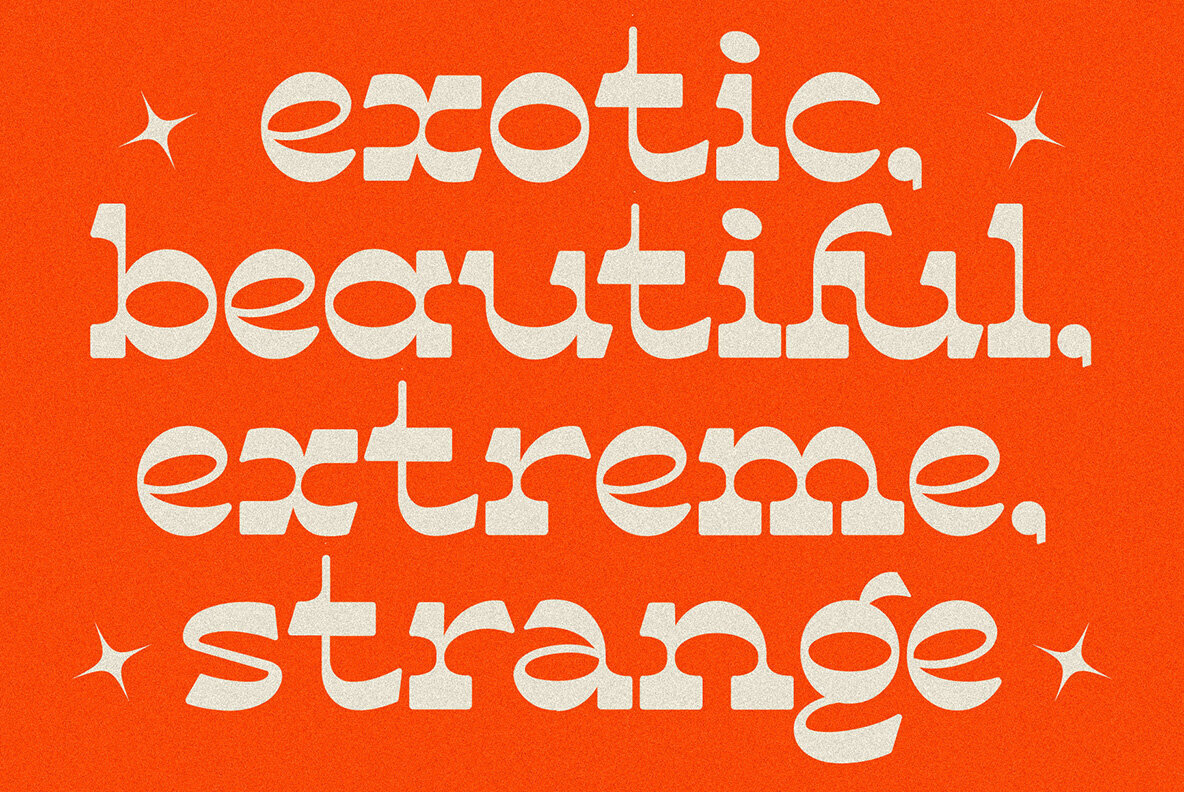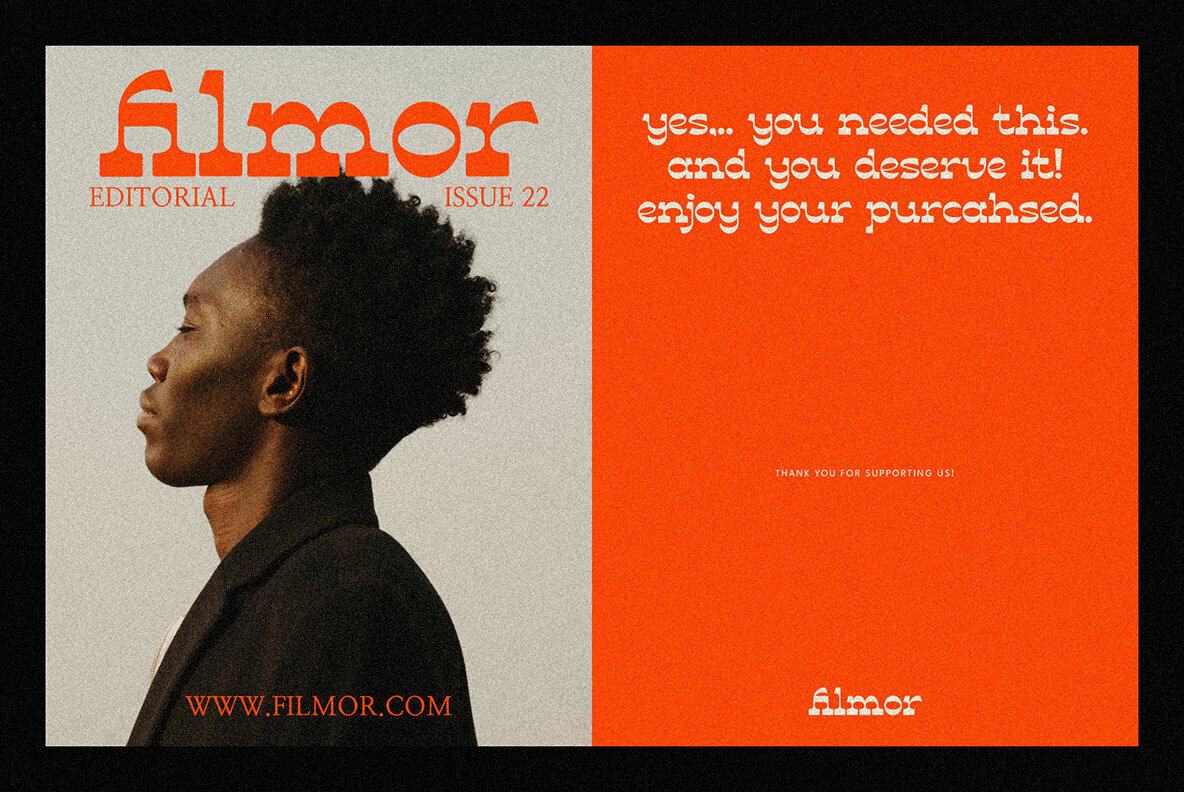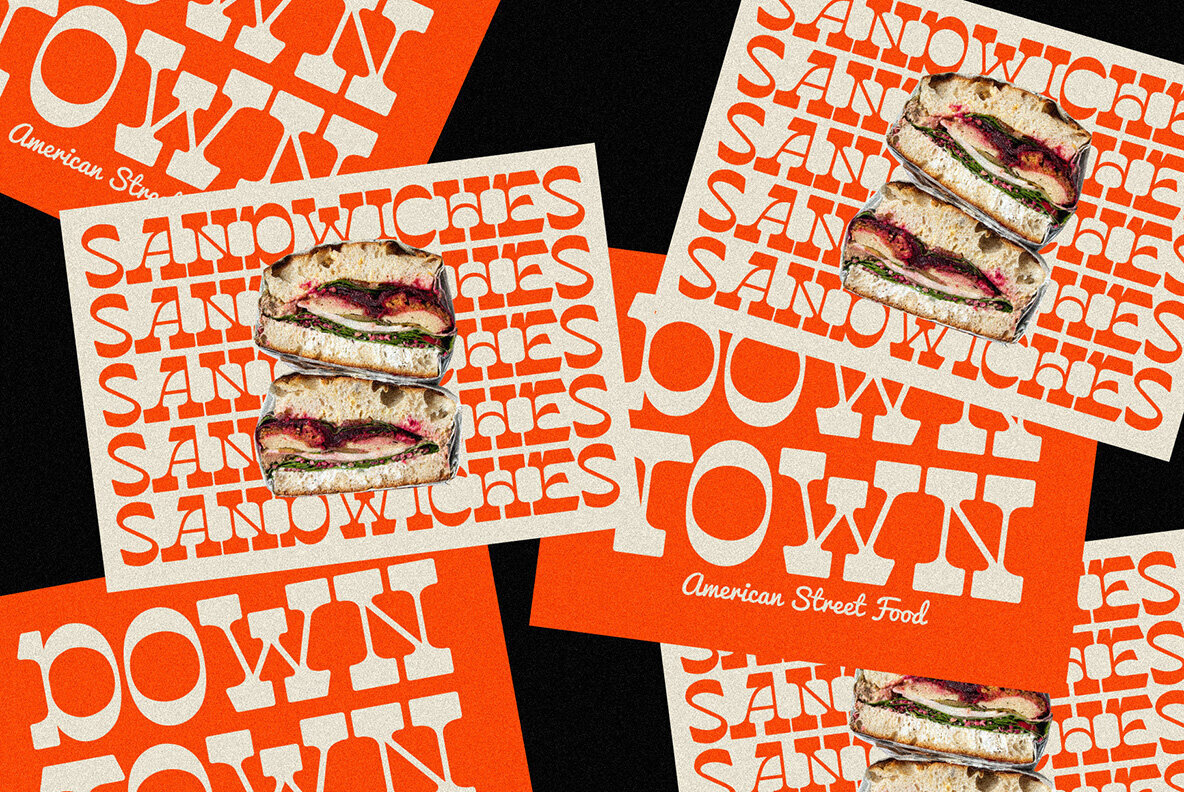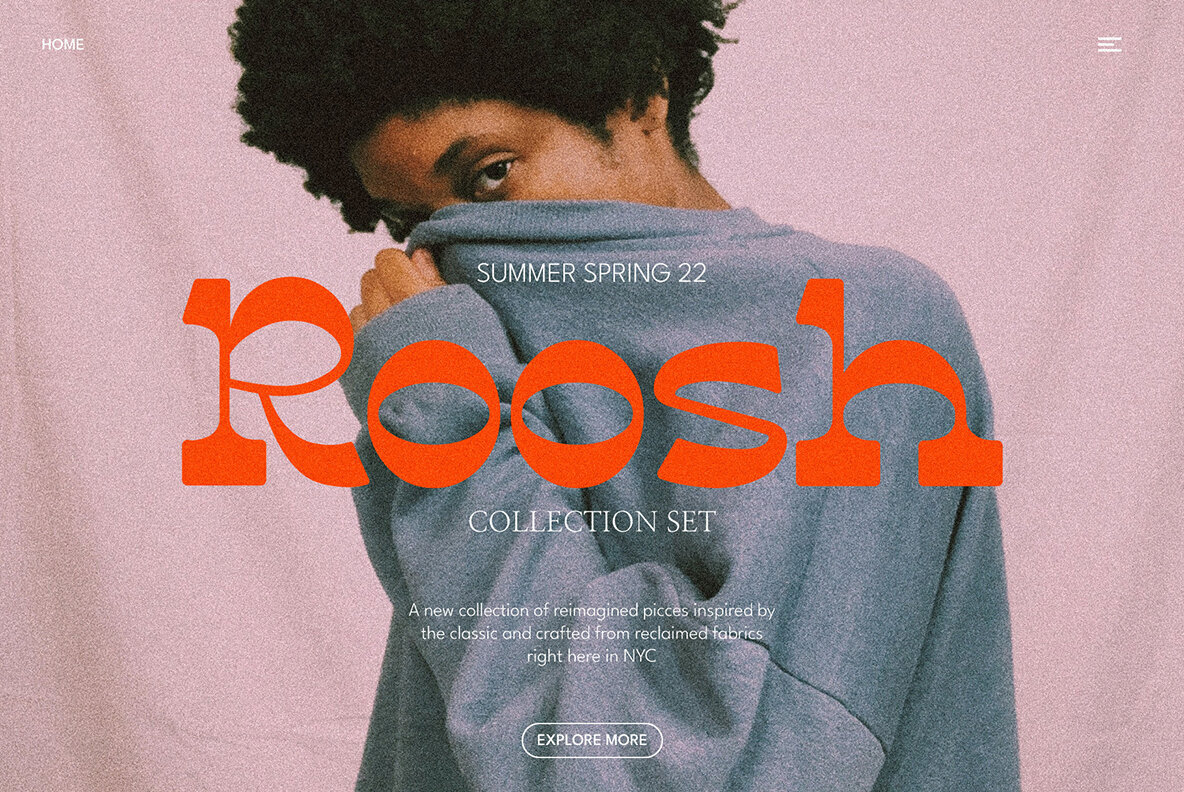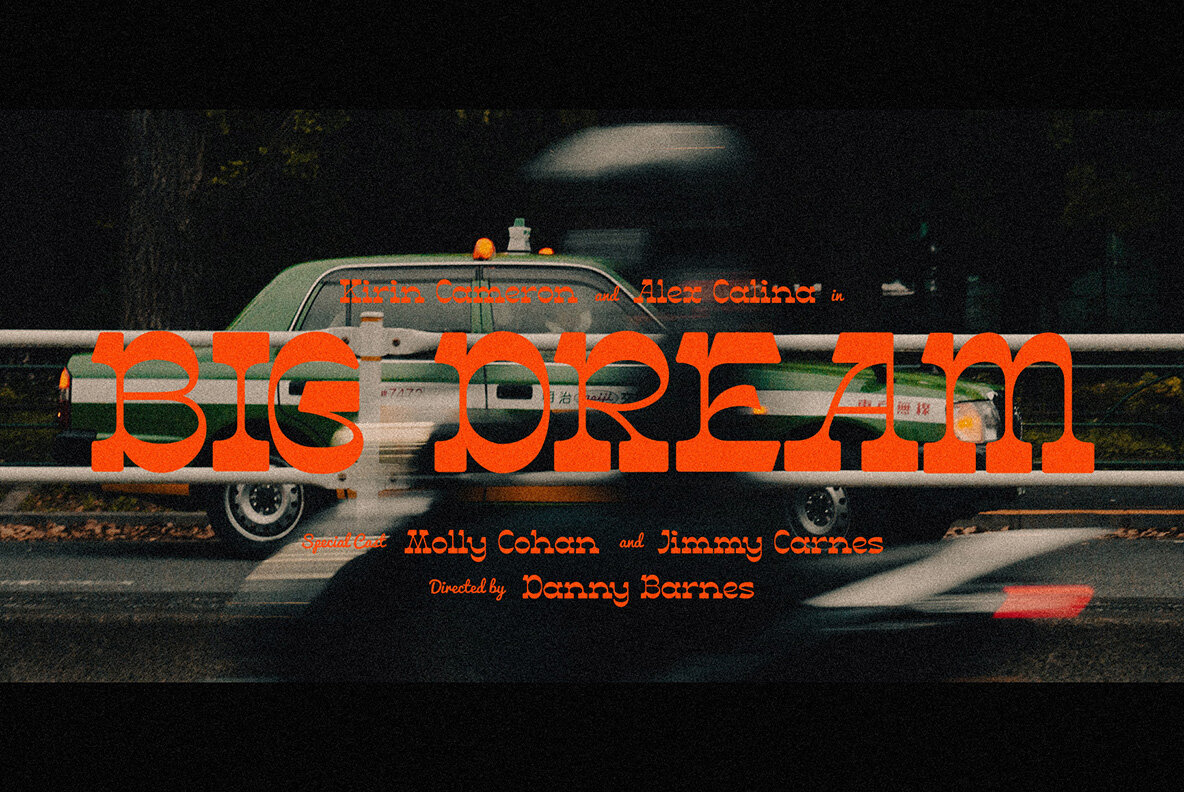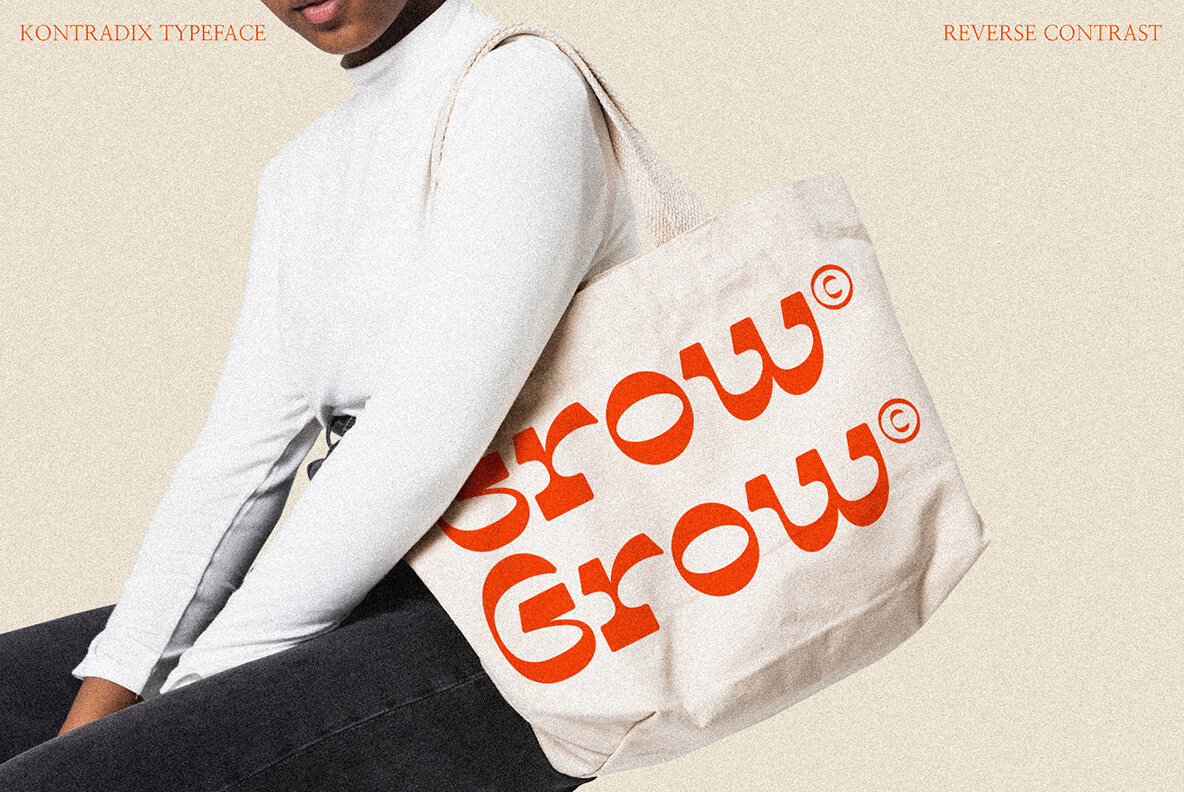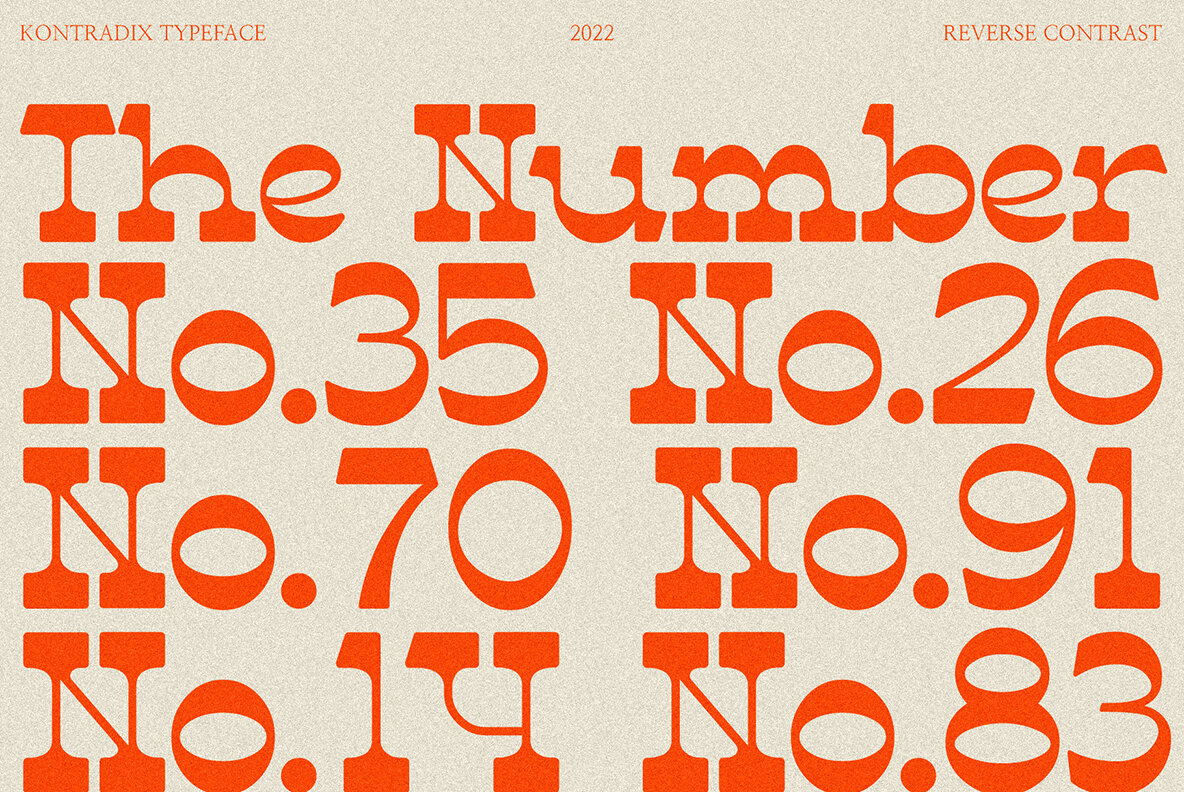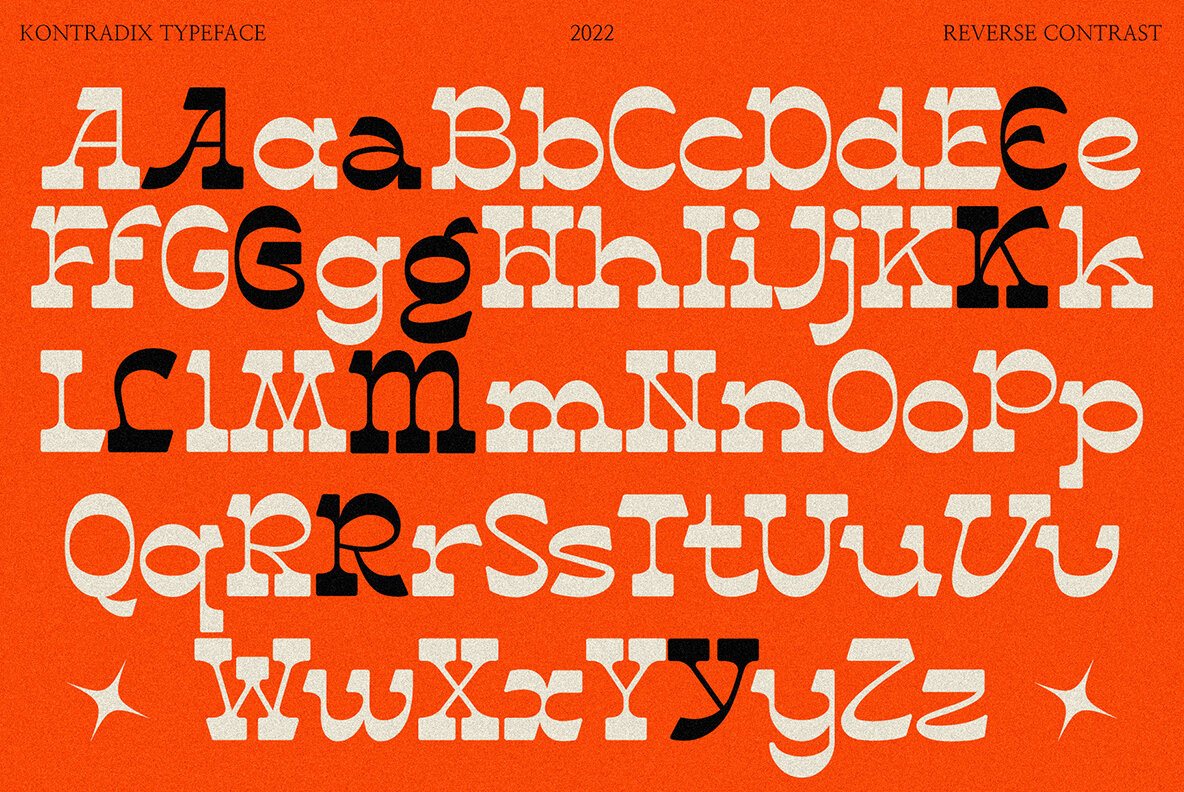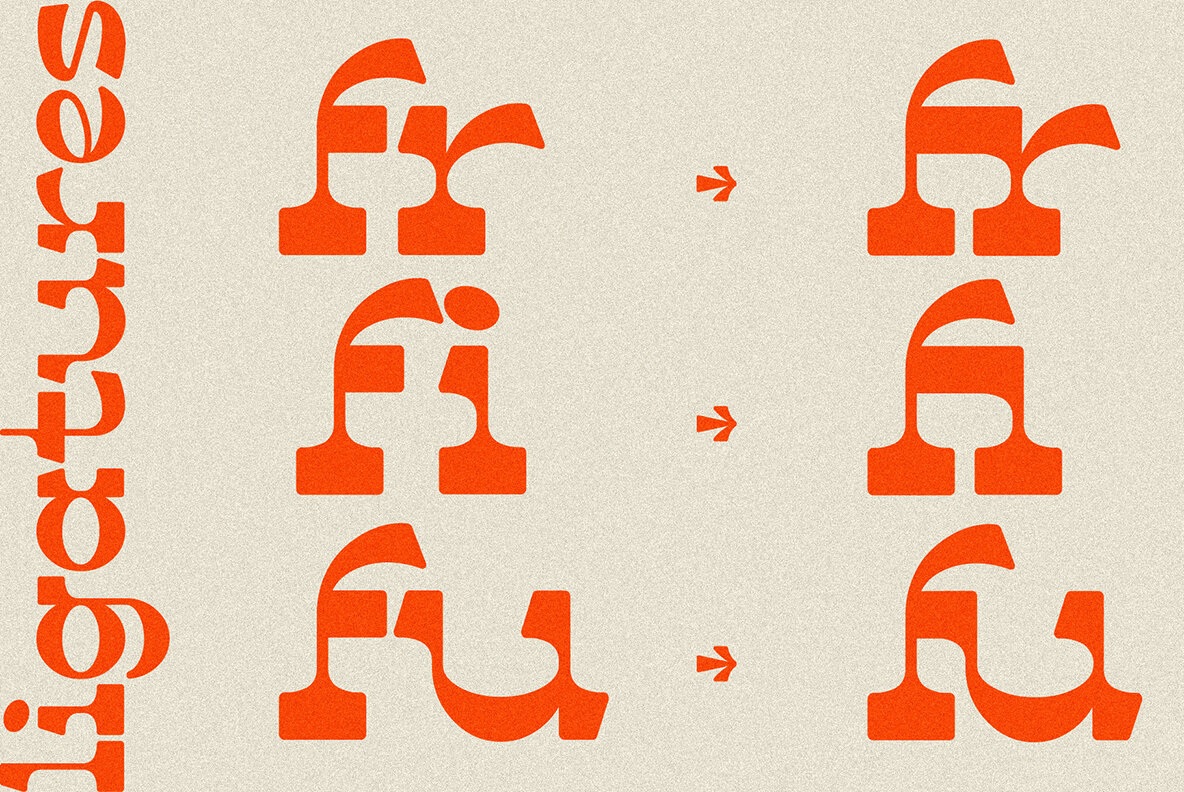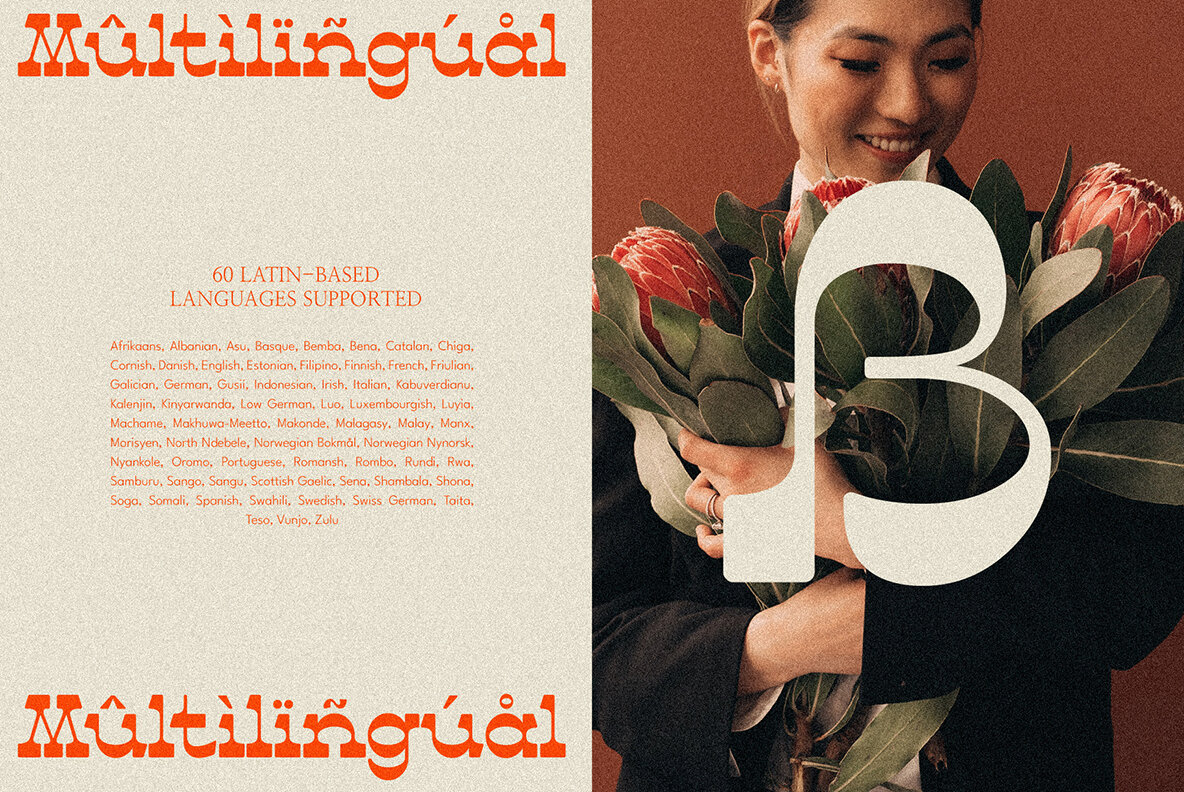
Kontradix Font
A new collection of retro display fonts. Kontradix is a reverse contrast display font with a contemporary concept and modern styling. Ensuring carefully crafted styles result from the use of this font. The alternates and ligatures in this font can make your projects more interesting. The imperfections keep it casual while still providing legibility. It's ideal for headlines, flyers, posters, greeting cards, product packaging, book covers, logotypes, and album covers, among other things.